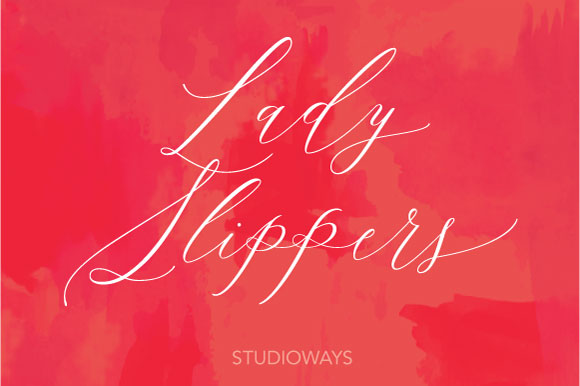
Introducing Lady Slippers Font, a gracefully flowing script font crafted by Studioways, designed to emulate the elegant strokes of handwritten calligraphy. This enchanting font is a perfect blend of sophistication and charm, carrying the warmth and personality of handwritten notes into the digital realm.
Indulge in the beauty of Lady Slippers and let your designs bloom with intricate details and effortless elegance. Its delicate curves and sweeping strokes create a captivating visual dance, adding a touch of romance and femininity to your projects. With Lady Slippers, you can evoke the timeless allure of handwritten letters, personal invitations, and heartfelt messages.
Express your creativity with this versatile and diverse typeface, perfect for a myriad of design endeavors. Design breathtaking wedding invitations, add a personal touch to your blog posts, or create eye-catching social media graphics that resonate with your audience. Lady Slippers effortlessly elevates your designs, adding a layer of elegance and sophistication.
Immerse yourself in the world of Lady Slippers and discover the endless possibilities it offers. Its versatility shines in logos and branding, adding a distinctive charm to your business identity. Craft beautiful posters and flyers that capture attention with their graceful lines and delicate details. With Lady Slippers, your designs will exude a timeless elegance that captivates and inspires.
Embrace the beauty of Lady Slippers and open the door to a world of creative possibilities. It's not just a font; it's an invitation to express yourself with grace, romance, and a touch of timeless elegance. Let your designs flourish with the charm of Lady Slippers and leave a lasting impression on your audience.